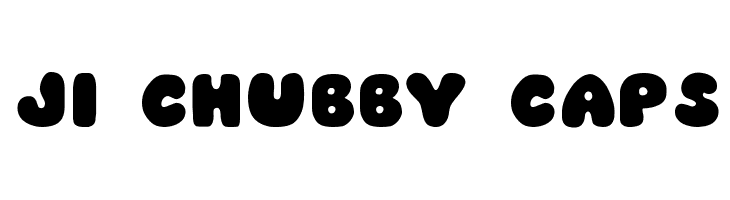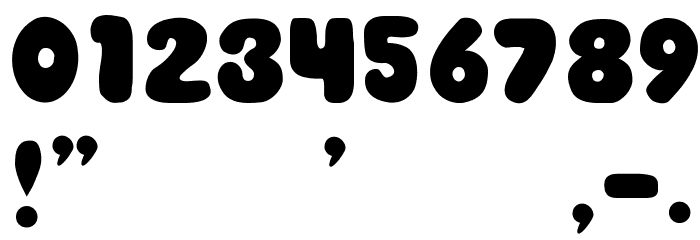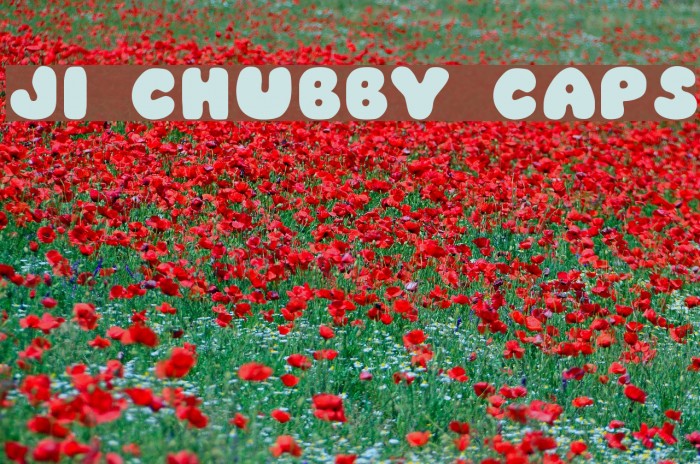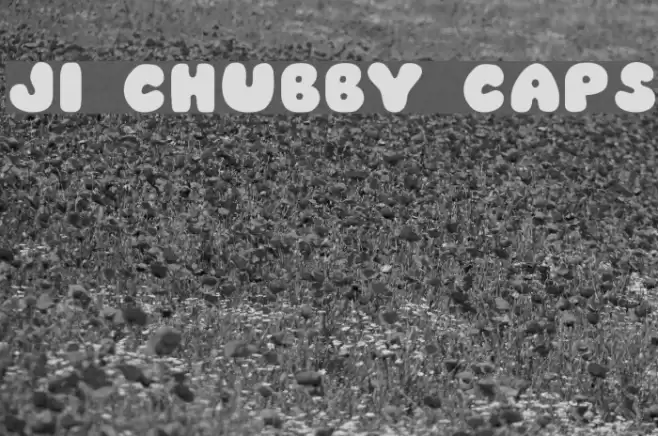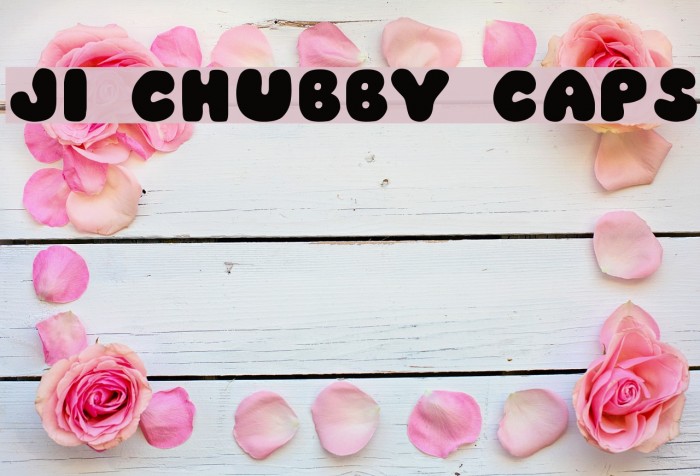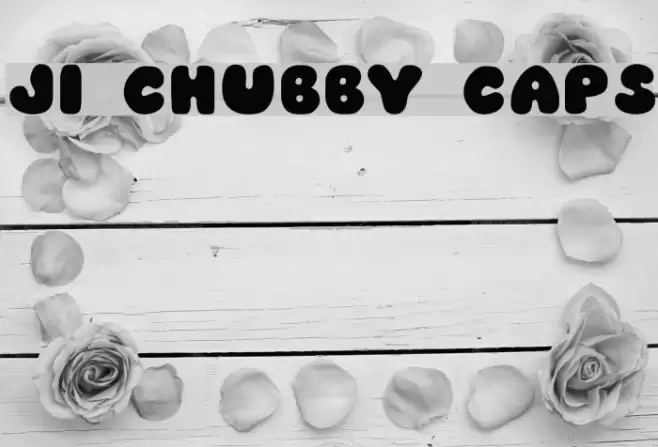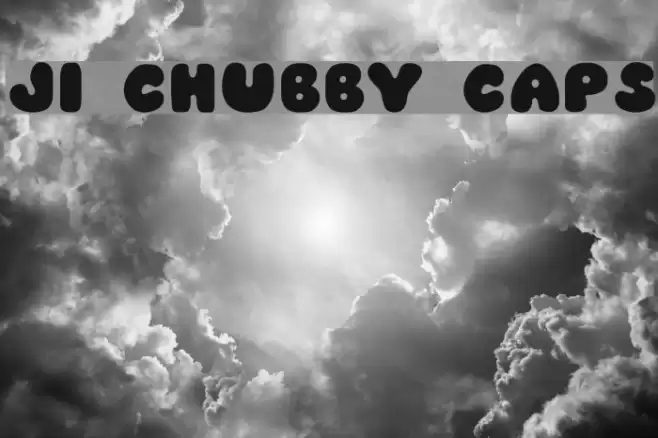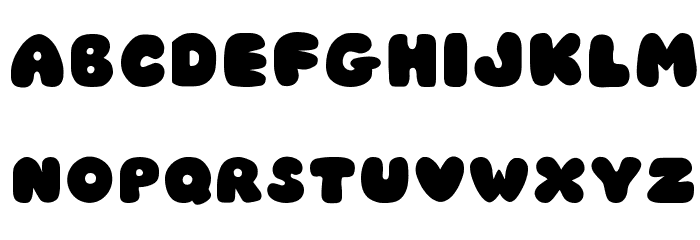
JI Chubby Caps Font
JI Chubby Caps Description
This font features a playful and bold design with rounded, chubby characters that convey a sense of fun and approachability. The letters are uniformly thick, with a consistent stroke width that gives them a solid and substantial appearance. The rounded edges and lack of sharp angles contribute to a friendly and informal style, making it ideal for projects that aim to be inviting and engaging. The numbers and special characters maintain the same playful aesthetic, ensuring a cohesive look across all text elements. This font is particularly well-suited for children's materials, playful branding, or any project that benefits from a lighthearted and whimsical touch.
| Overall Style | Playful |
| Proposed Projects | Children's books, playful branding, party invitations, posters, and merchandise. |